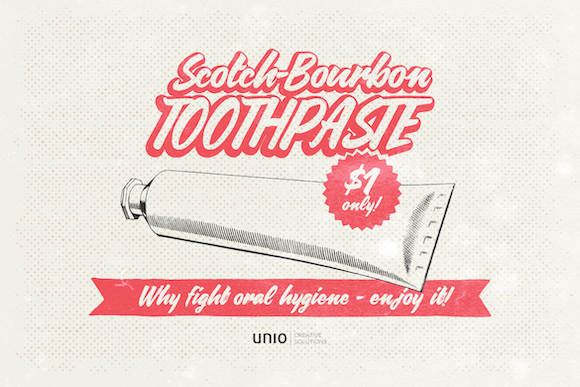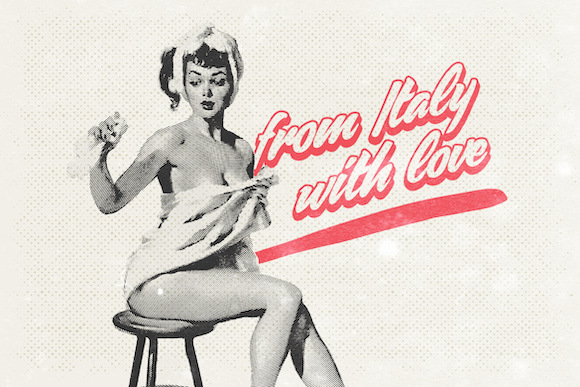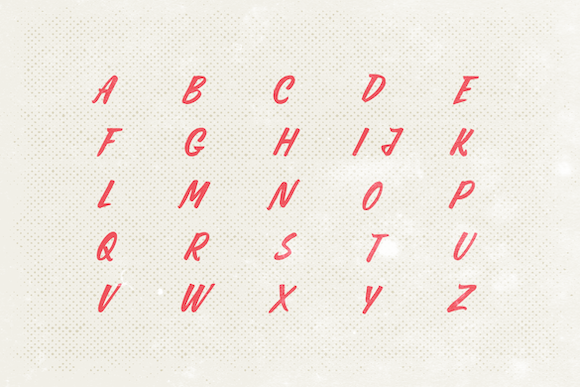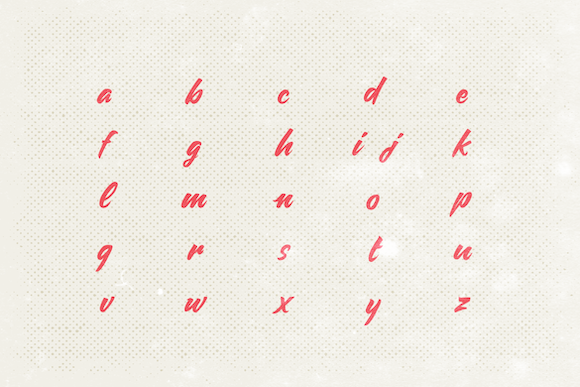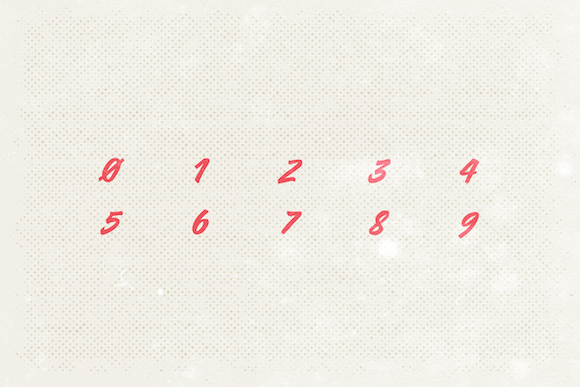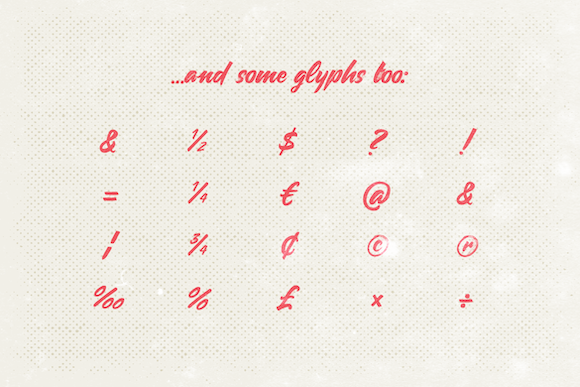
Where Imperfections Become Perfection: The Carosello Font Story
Have you ever been sitting at your desk, staring at a blank piece of paper, waiting for the perfect idea to strike? For designers, this moment can be a daily occurrence, but it’s exactly what inspired the creation of the Carosello Font. This beautiful script font was born from a desire to capture the essence of vintage handwritten imperfections and bring them to life in a digital format.
The Carosello Font is more than just a pretty face; it’s a tool designed to add a touch of authenticity to your designs. By embracing the quirks and imperfections of handwritten text, designers can create a unique and personal aesthetic that sets their work apart from the crowd. Whether you’re a seasoned pro or just starting out, the Carosello Font is a valuable addition to any design toolkit.
- Unique Characteristics: Carosello Font features a unique, elegant design with a mix of classic and modern elements, making it perfect for use in high-end branding and design projects.
Carosello Font Review
Carosello Font, a classic Italian-inspired design. I was immediately drawn to its elegant, nostalgic vibe ✨. The font’s intricate details and ornate flourishes evoke a sense of luxury and sophistication. It’s perfect for creating eye-catching headings and titles that add a touch of vintage charm to any design.
One of the strengths of Carosello Font is its versatility ✨. It works well in both digital and print applications, making it a great choice for designers who need a font that can adapt to different mediums. The font also includes a range of weights and styles, giving designers plenty of options for customizing their designs.
While Carosello Font has many strengths, it also has some limitations ⚠️. One of the main issues is its complexity ✨. The font’s intricate details can make it difficult to read, especially at smaller font sizes. Additionally, the font’s ornate style may not be suitable for all types of designs, such as those that require a more minimalist or modern aesthetic.
Overall, I think Carosello Font is a solid choice for designers who want to add a touch of elegance and sophistication to their designs ✨. While it may have some limitations, its versatility and classic style make it a great option for a wide range of applications.
- Classic Italian-inspired design
- Ornate flourishes and intricate details
- Range of weights and styles
- Versatile for both digital and print applications
- May be difficult to read at smaller font sizes
- Not suitable for all design styles
Carosello Font is commonly used for:
- Creating eye-catching headings and titles.
- Designing unique and creative typography.
- Adding a touch of elegance to presentations and documents.